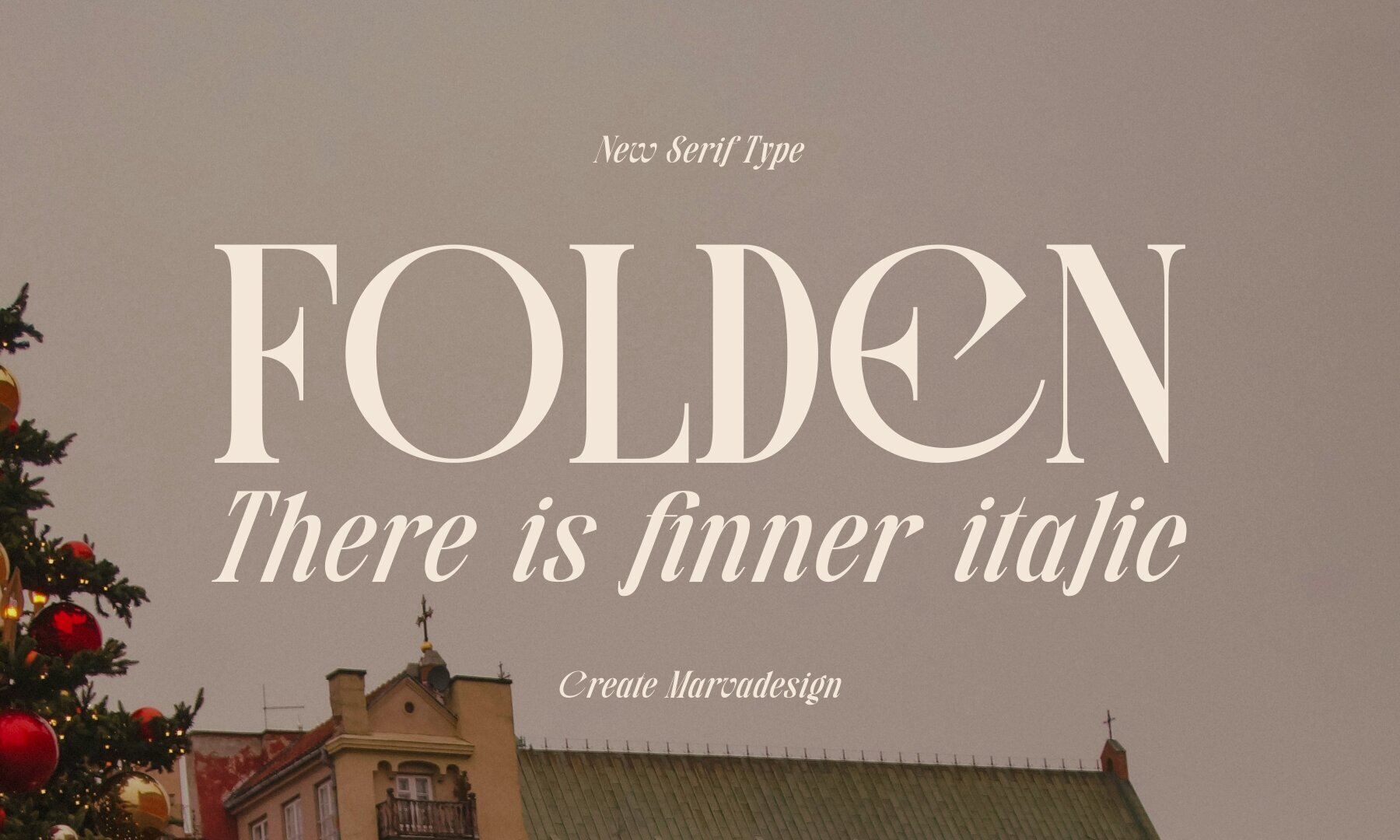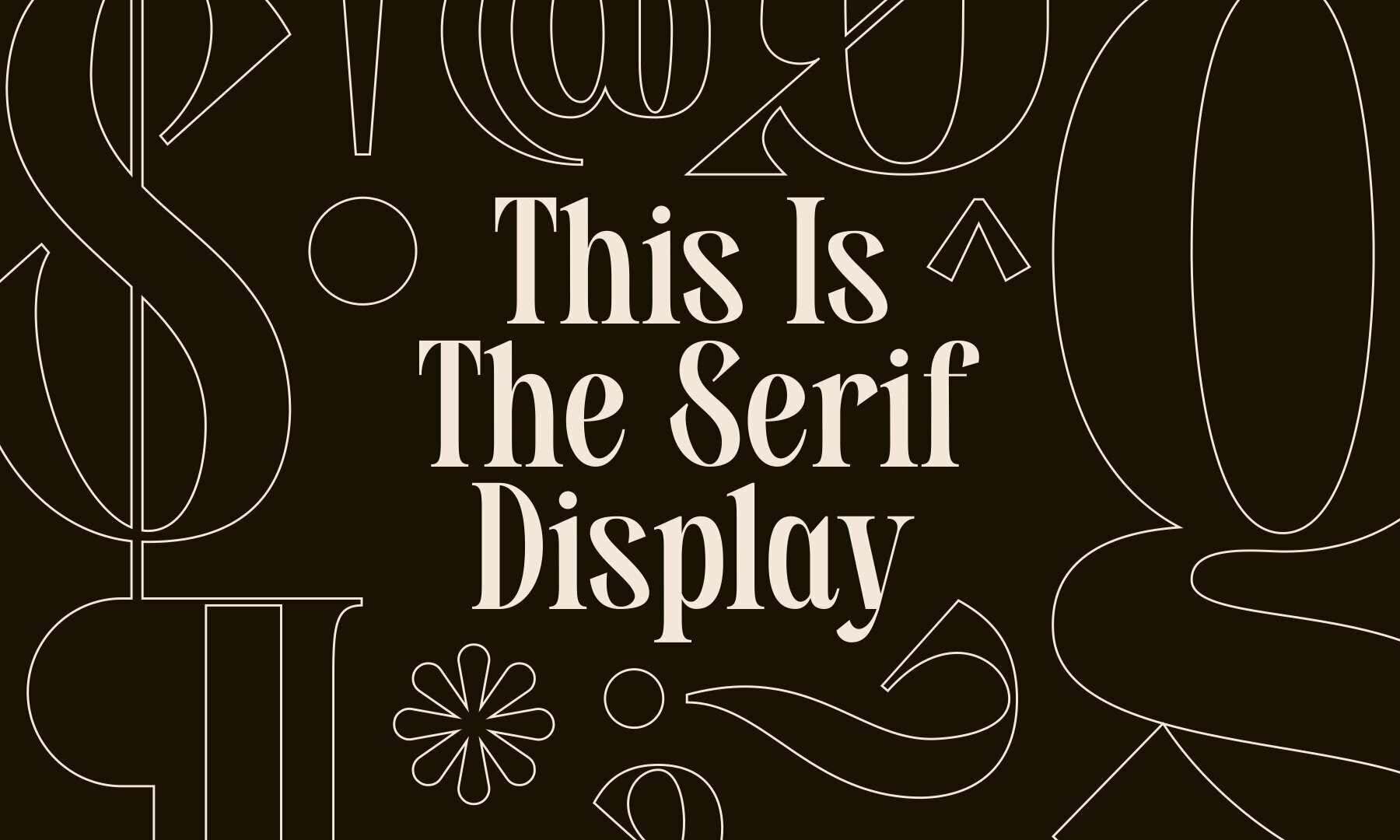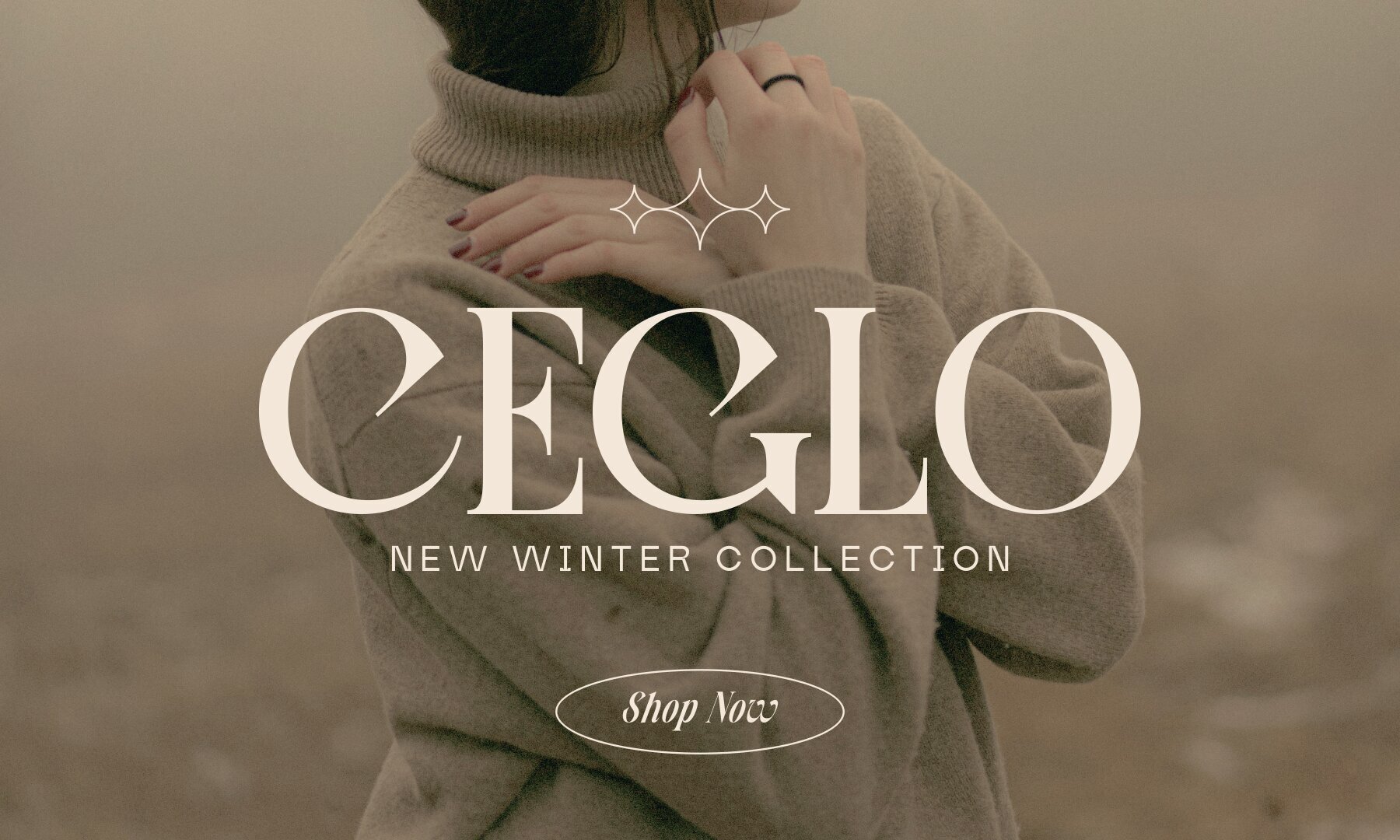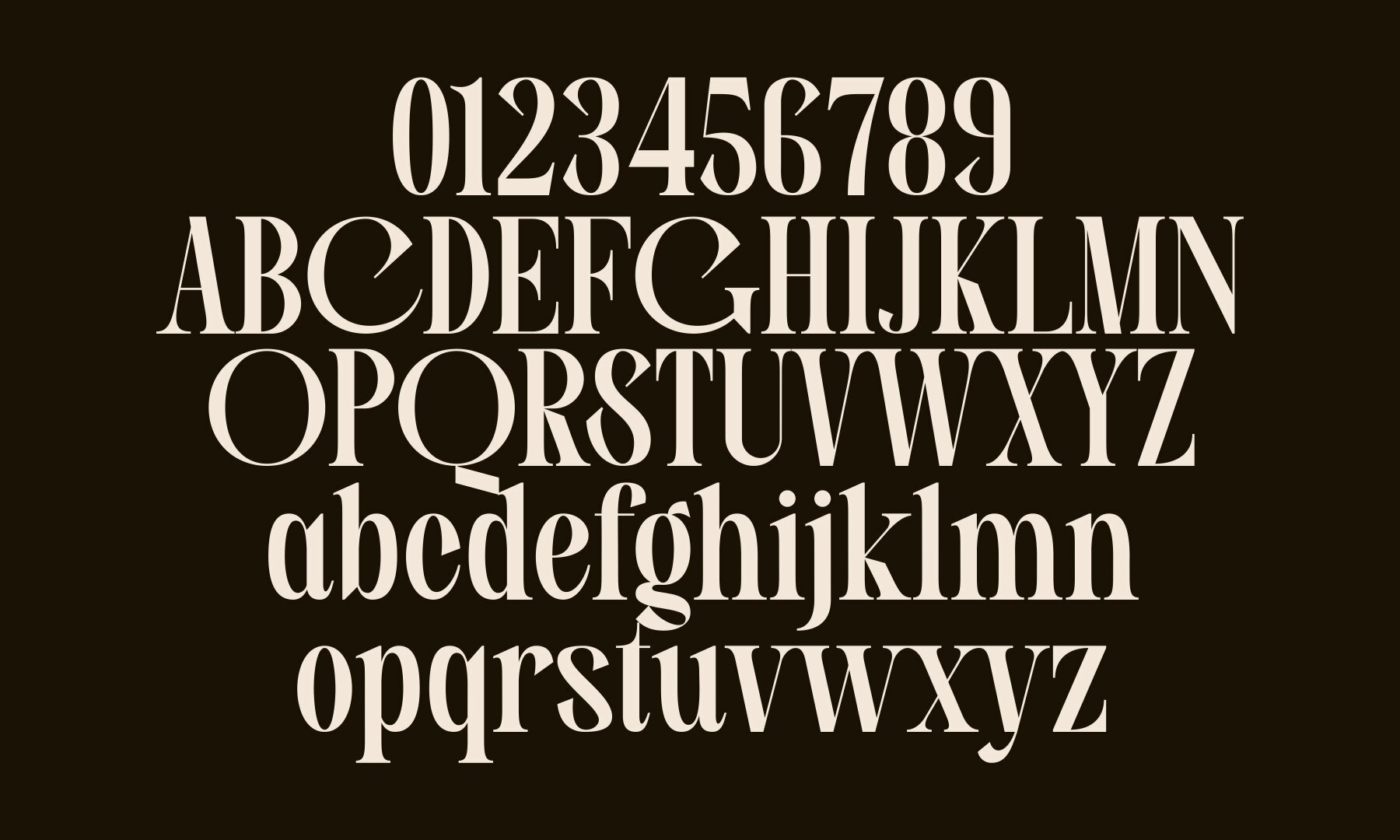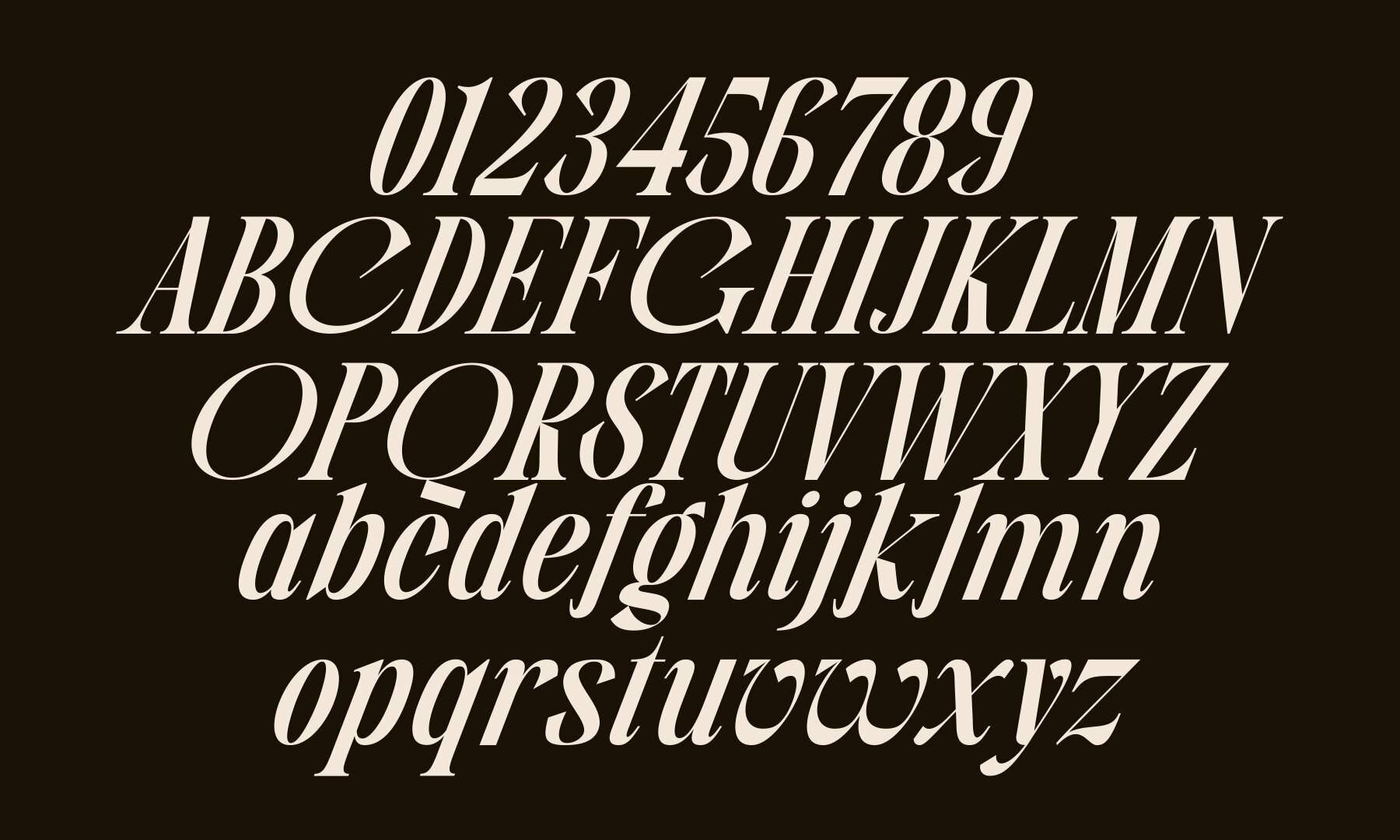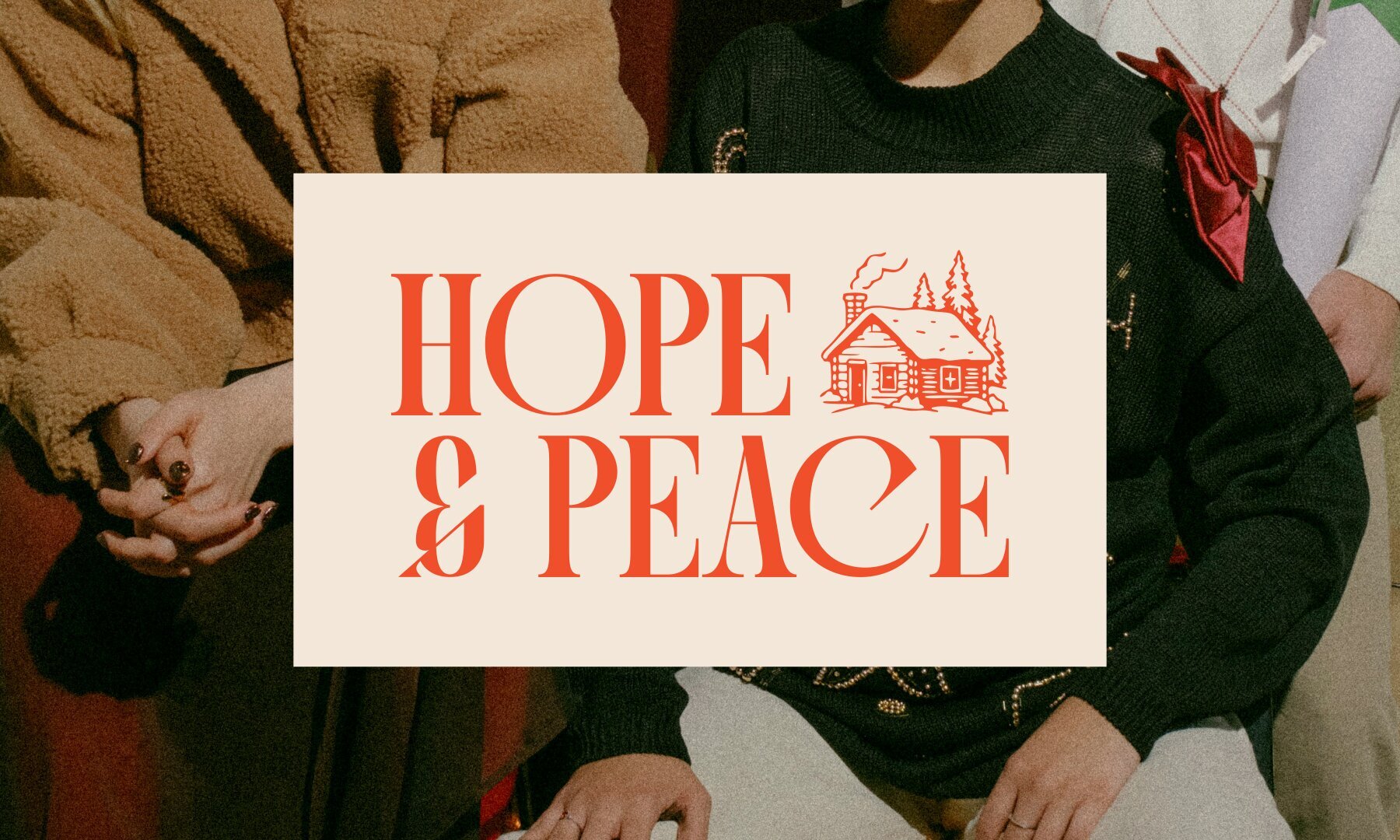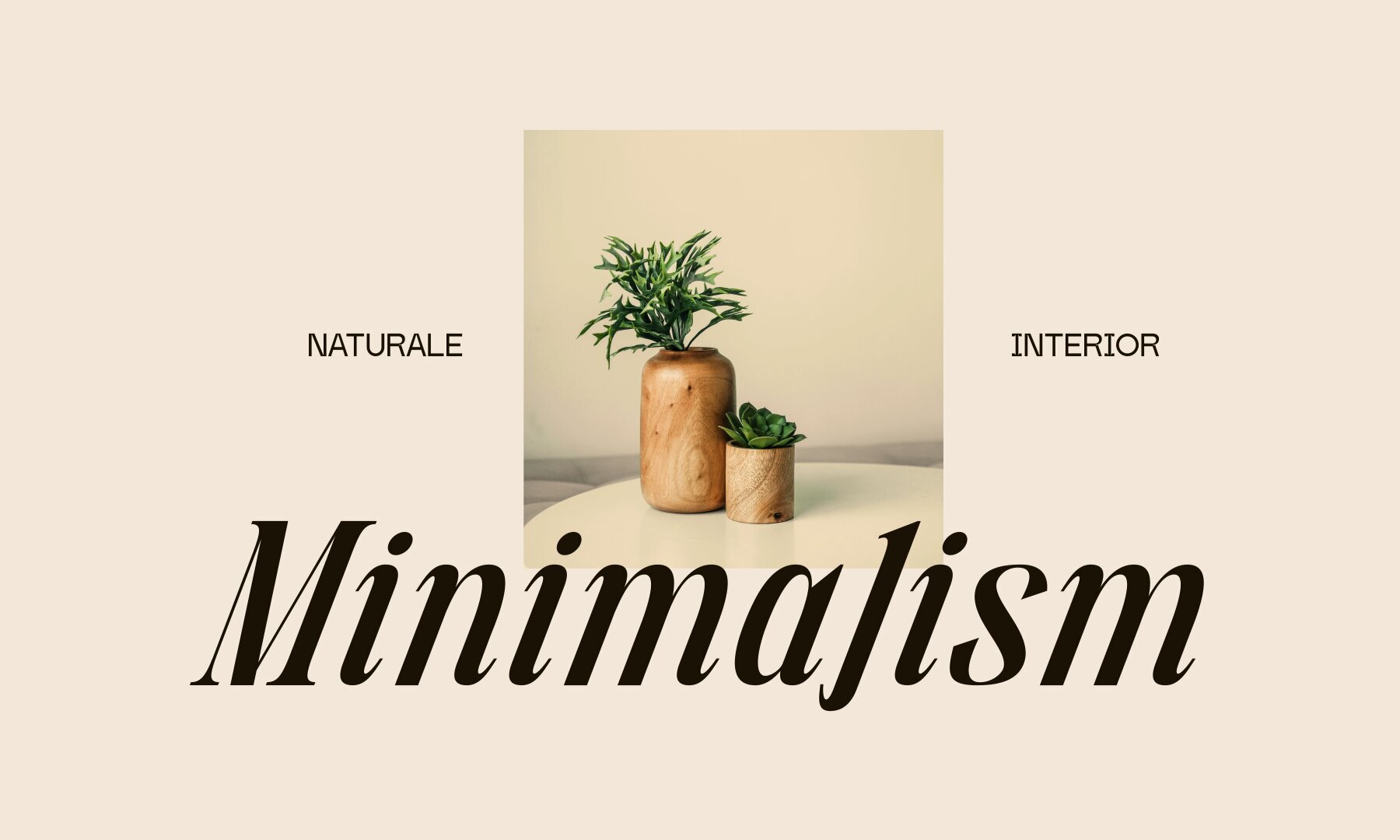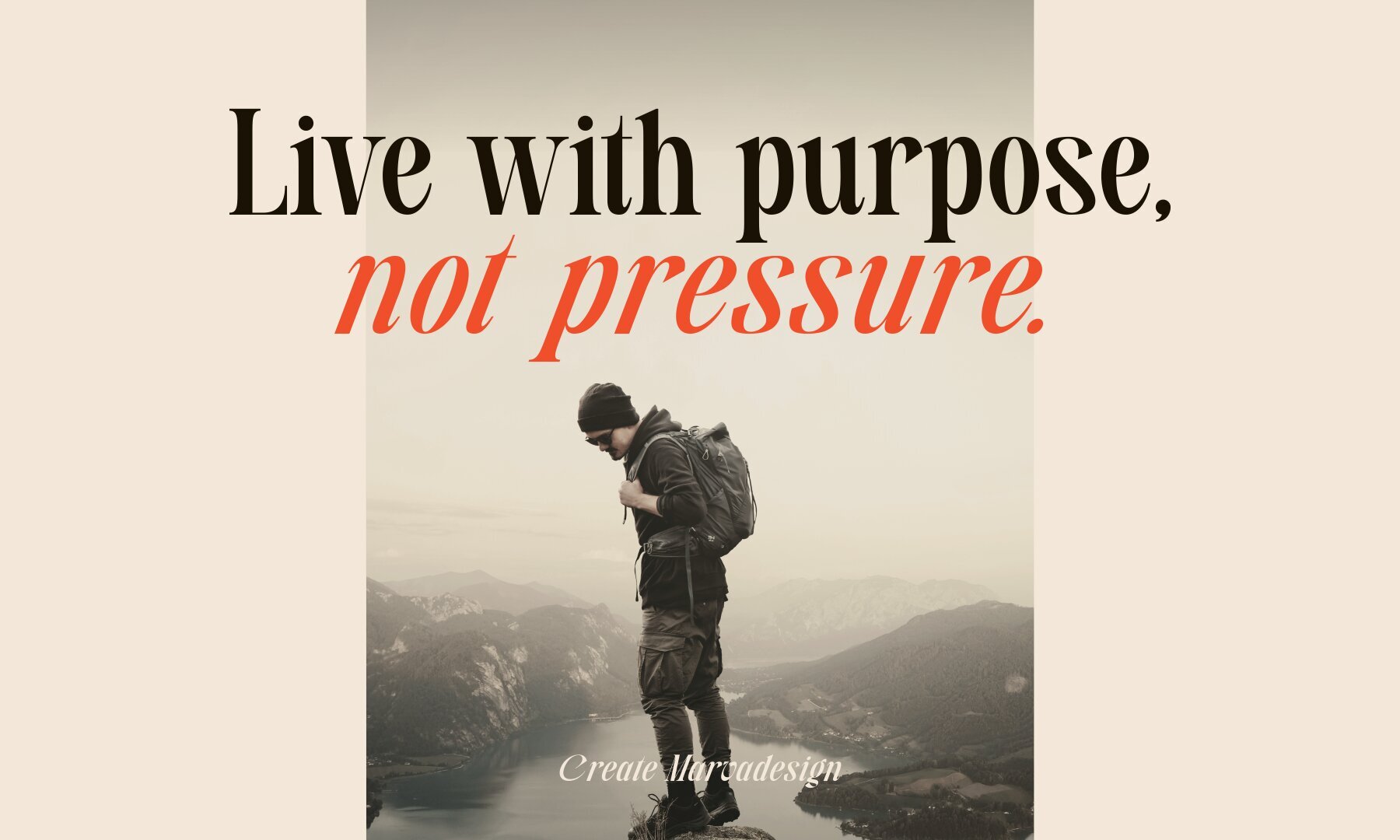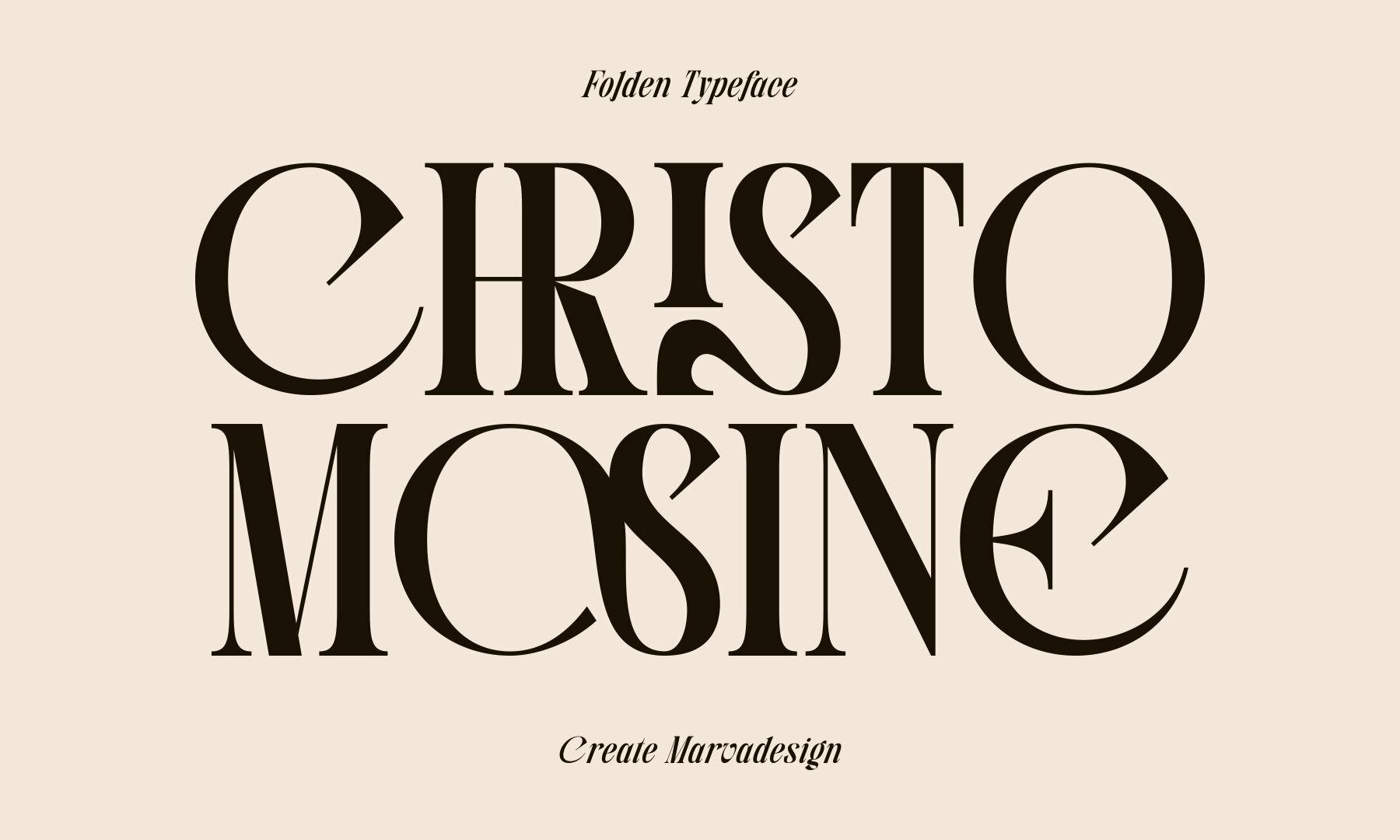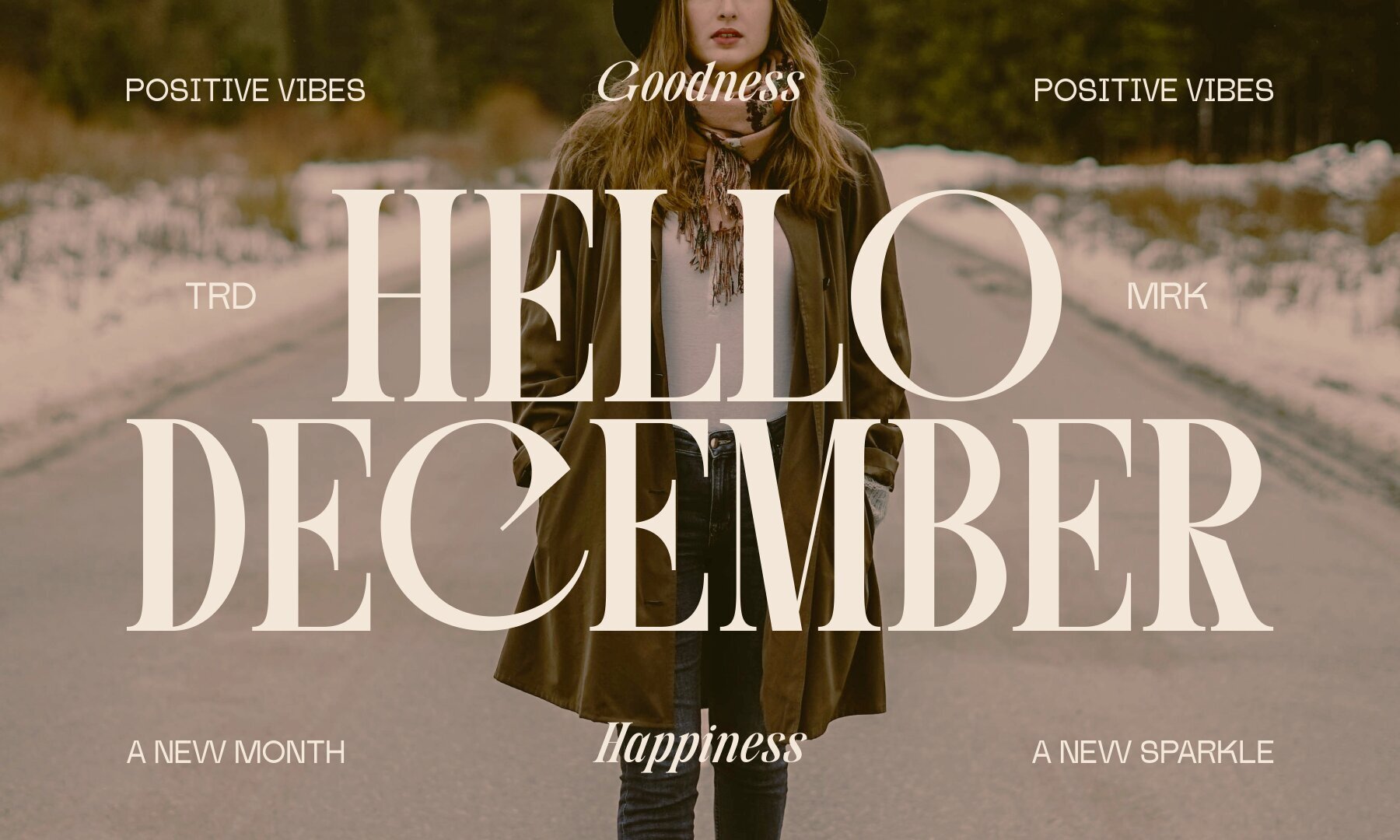
Folden Font
Folden is a modern serif font defined by high-contrast strokes and sculpted letterforms, offering a sophisticated presence for design projects that demand both elegance and individuality. The typeface presents a striking visual balance, skillfully merging sharp definition with a refined aesthetic, making it a compelling choice for branding, editorial headlines, and high-impact layouts. The family includes two styles—Regular and Italic—each curated for distinct uses. The Regular style embodies boldness and confidence, delivering clarity and poise for print and digital applications. The Italic style flows with graceful rhythm and subtle movement, adding a layer of emphasis and delicacy that brings warmth to typographic compositions.Folden: Modern Serif With Artistic Distinction